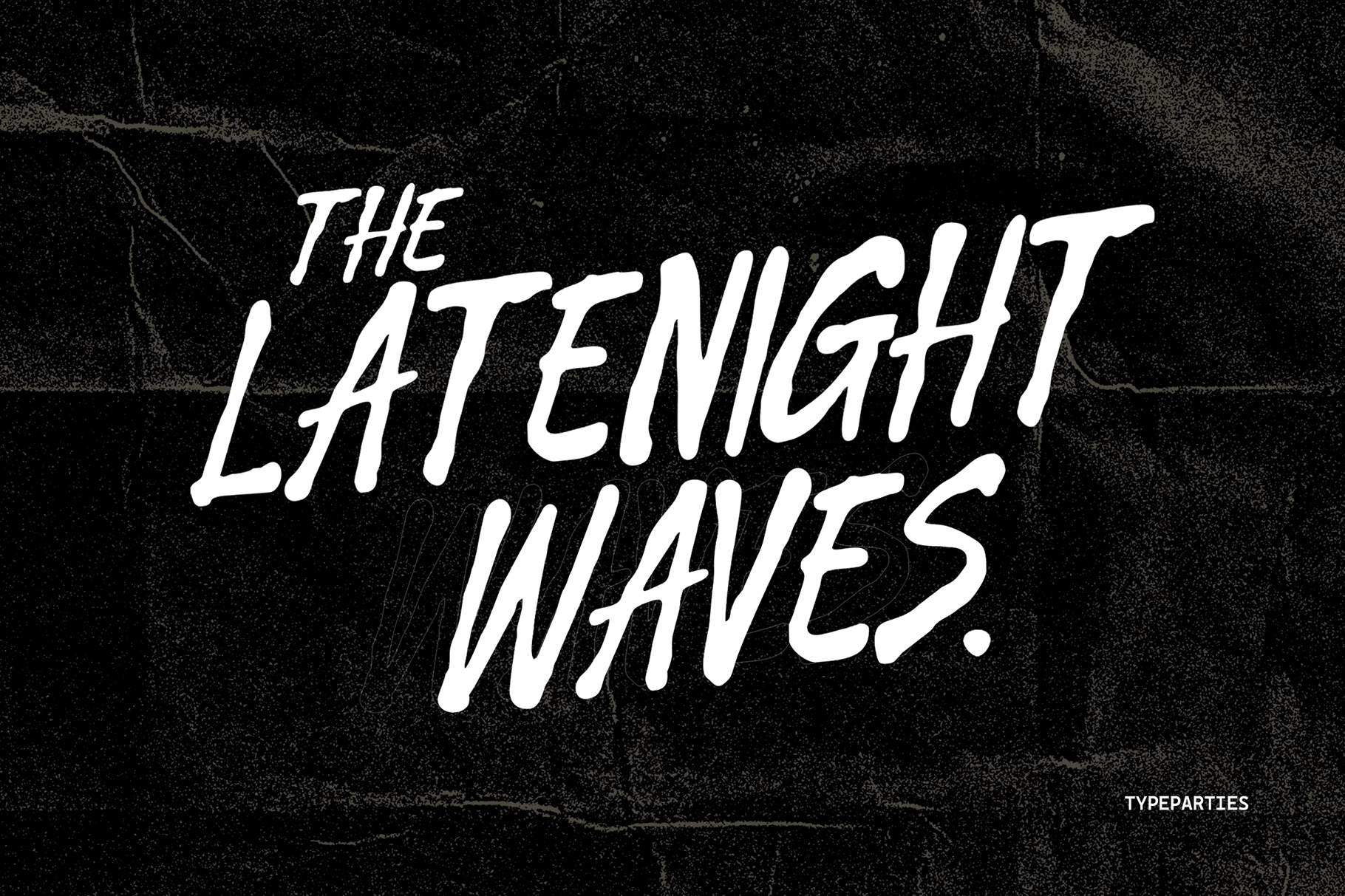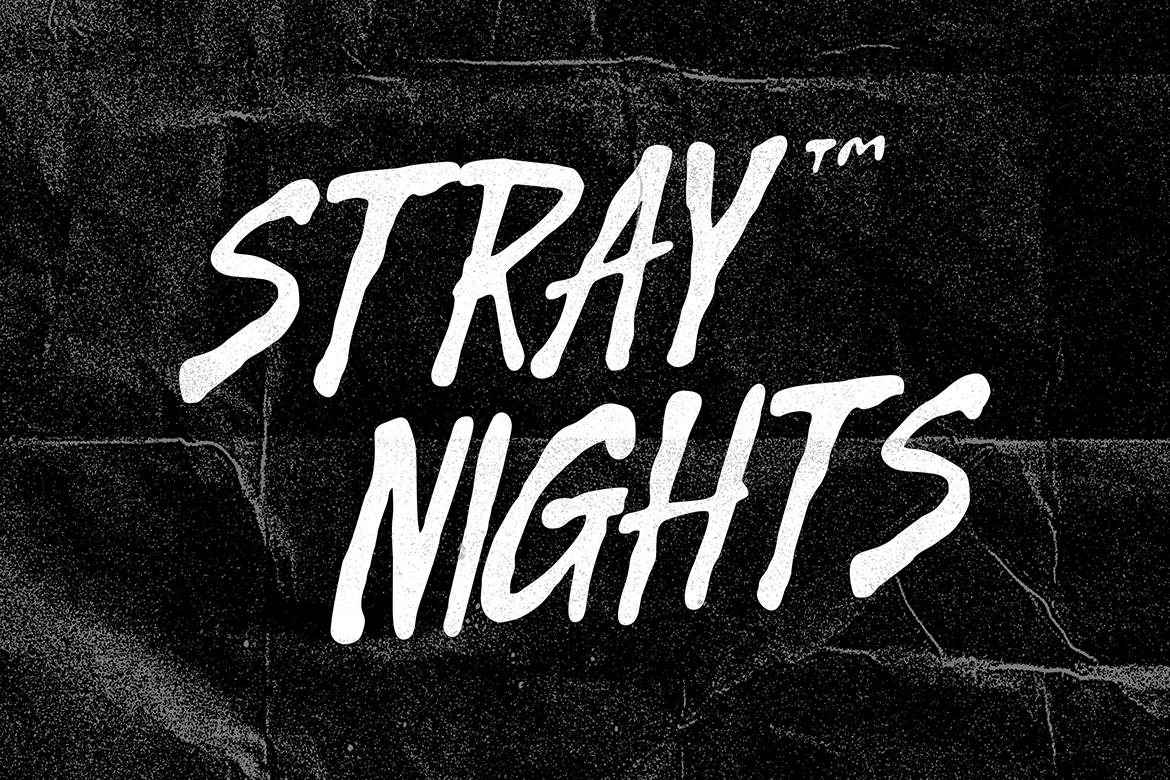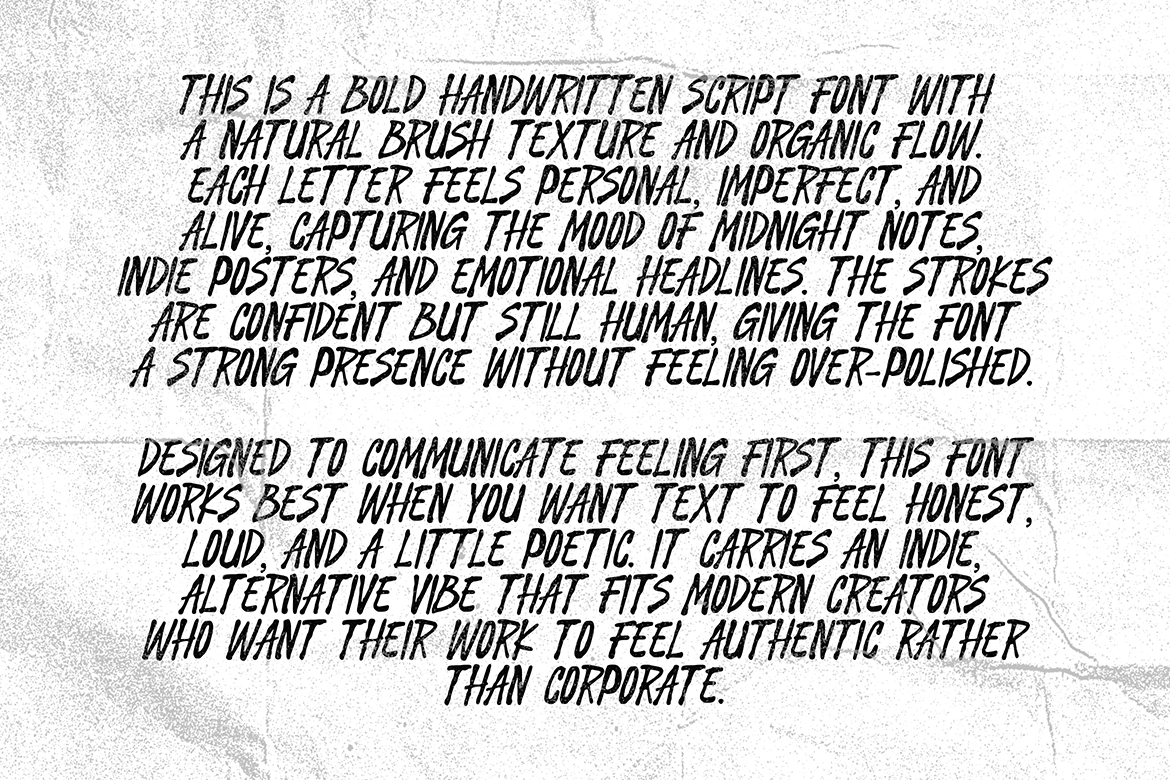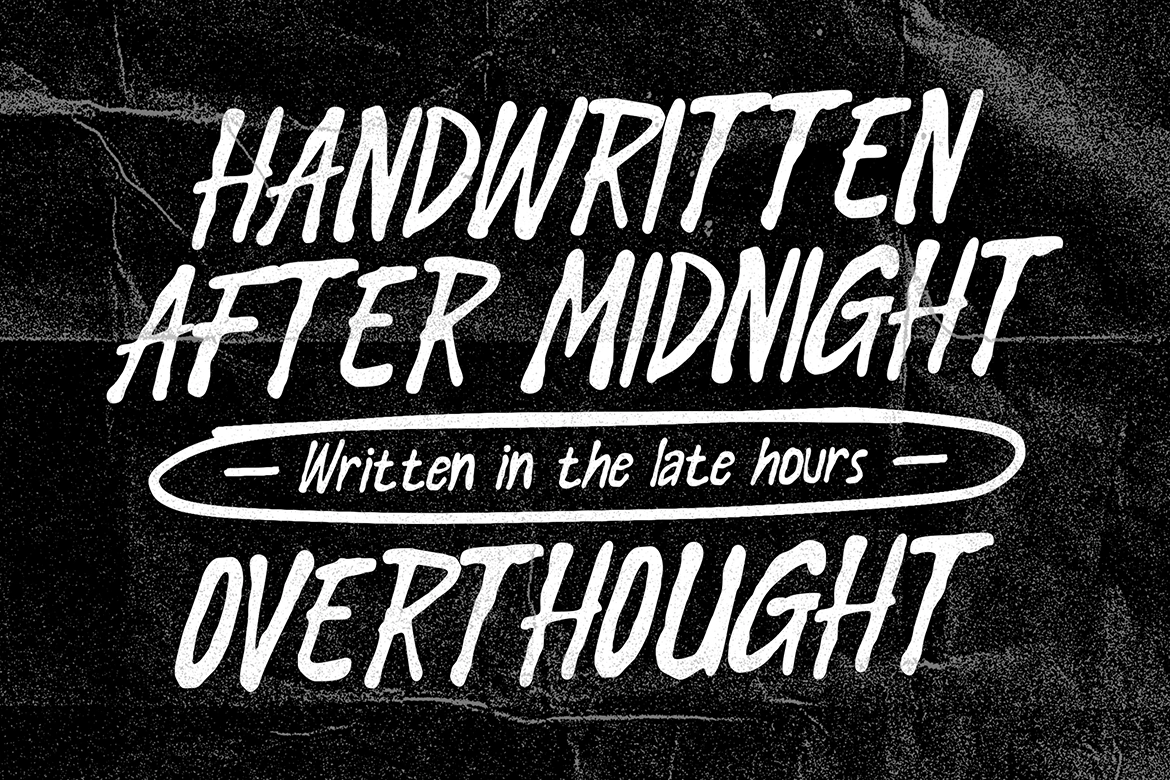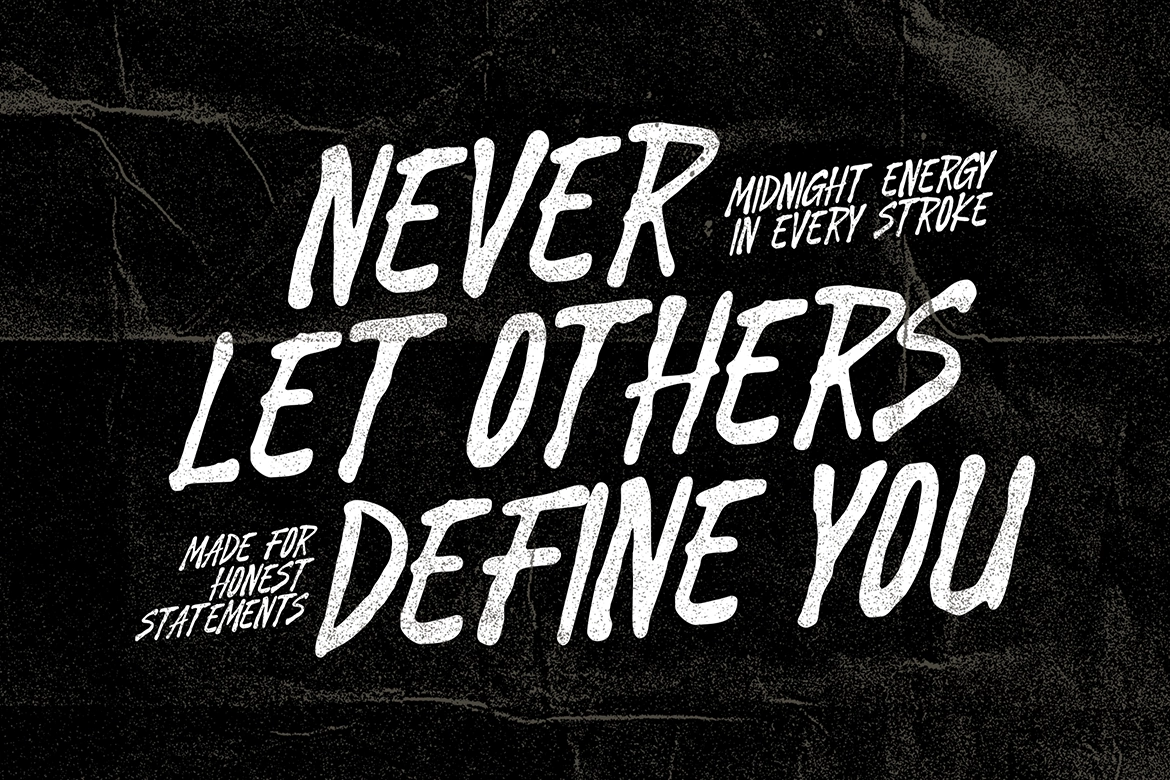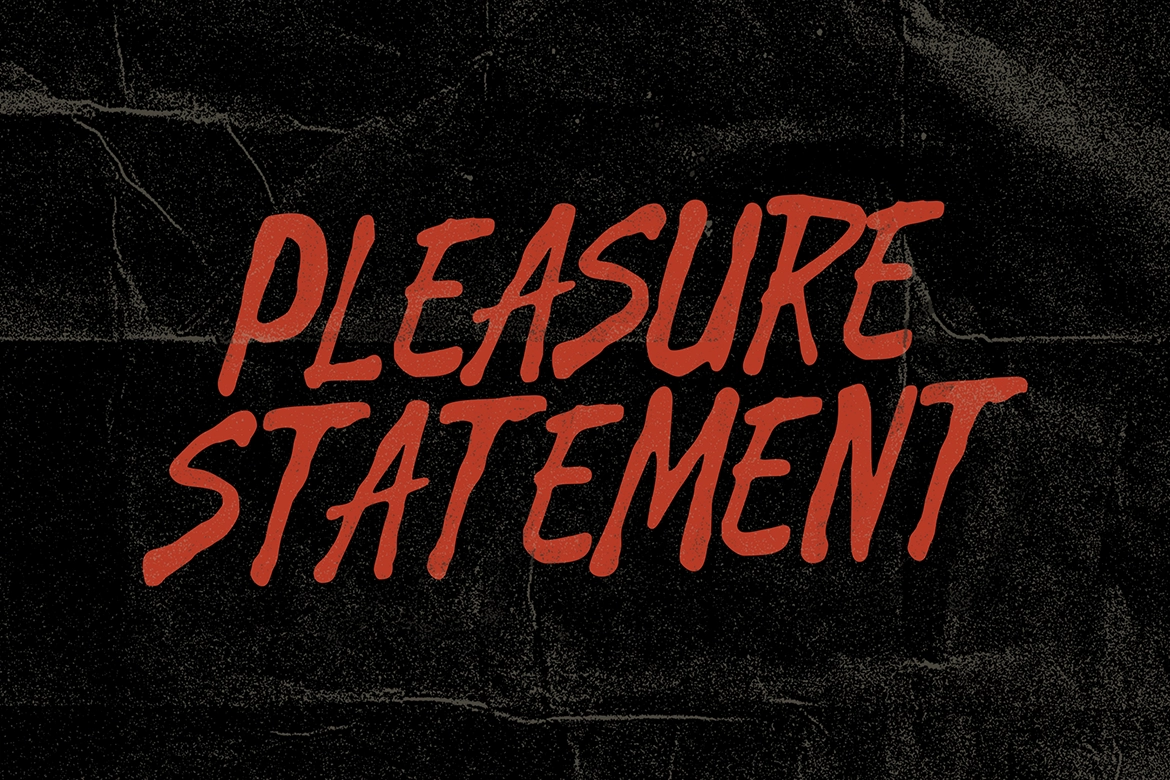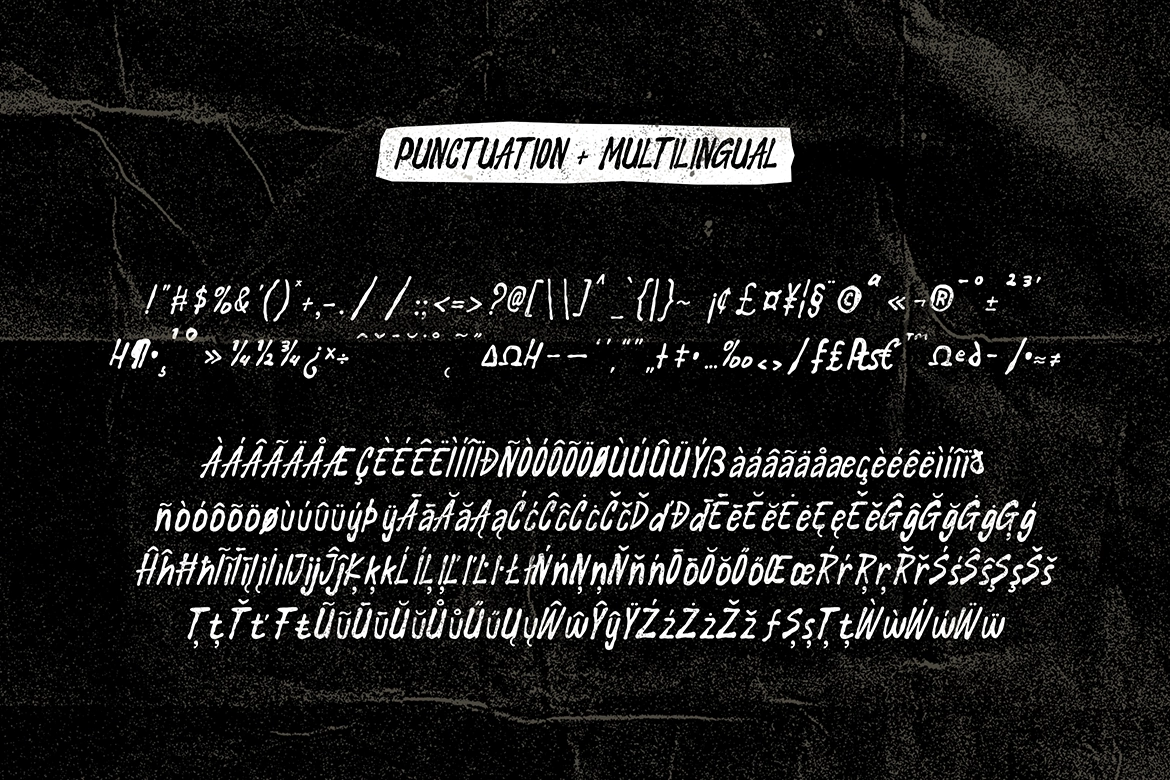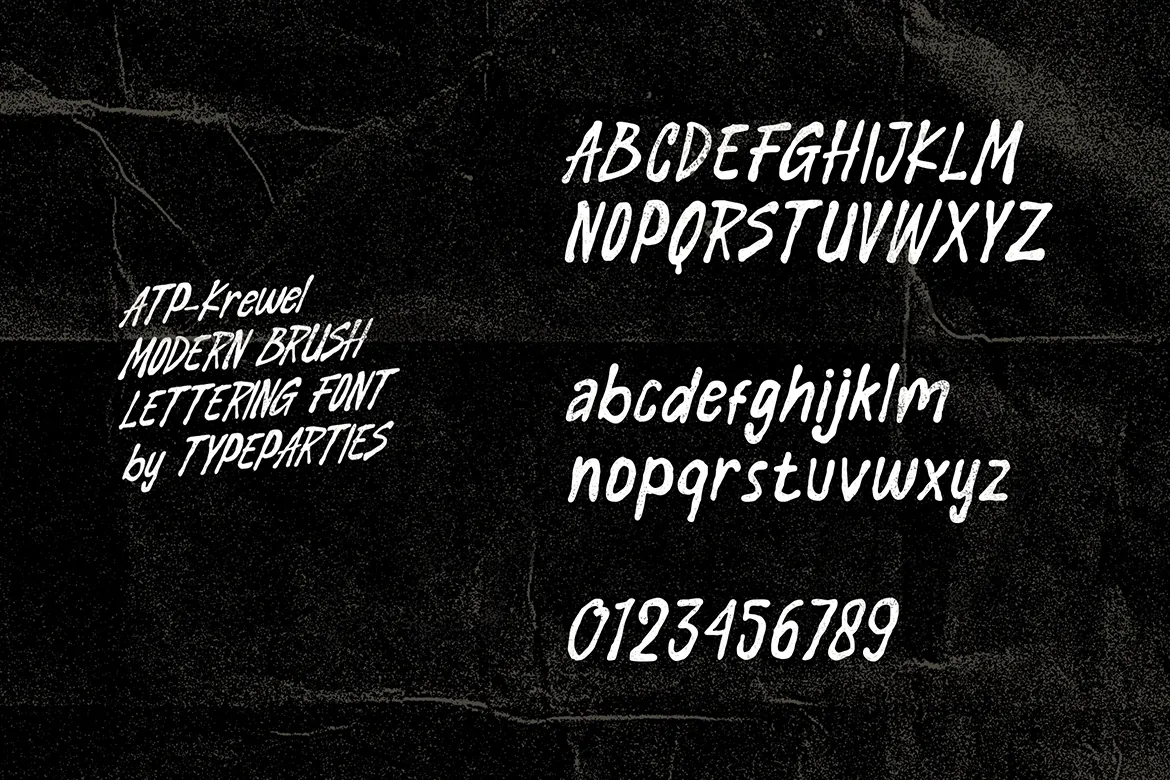
Latenight Waves - Grunge Brush Font
ATP Latenight Waves
Latenight Waves - Grunge Brush Font is a bold and expressive modern brush script font created to capture raw emotion and natural movement. Inspired by late-night creativity, indie culture, and spontaneous handwriting, this typeface delivers strong personality with every stroke.
Its textured brush details and organic flow give your typography an authentic, hand-drawn feel. Slight irregularities add character and depth, making the font feel human, dynamic, and full of attitude. Perfect for posters, album covers, social media graphics, branding, apparel, quotes, and statement headlines.
ATP Krevel is designed for creatives who want typography that feels energetic, honest, and unapologetically real.
- Natural Brush Texture
- Handwritten Style